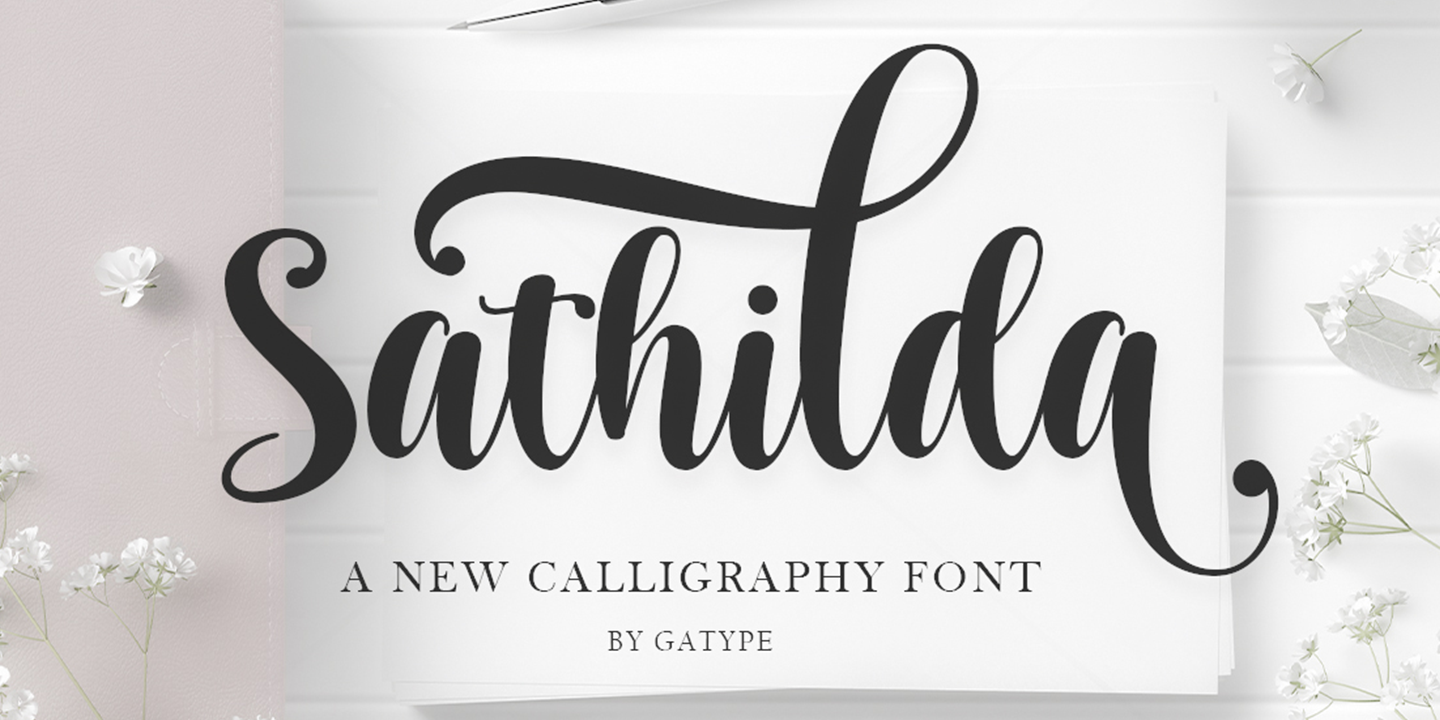
Sathilda
Sathilda is a brush script font family published by Gatype.
Sathilda is a beautiful modern calligraphy typeface, I hope you will be interested in this font, if you want to use it for your work. This font can be used easily and simply because there are many features in it. contains a full set of lowercase and uppercase letters, a wide variety of punctuation marks, numbers, and multilingual support. Sathilda would be perfect for invitations, logo & branding, photography, advertising, watermarks, social media posts, product packaging, product designs, labels, wedding designs, stationery, special events, or anything that needs a handwritten feel. Alternate characters are divided into several Open Type features such as , Alternative Style. The Open Type feature can be accessed using intelligent Open Type programs such as Adobe Illustrator, Adobe InDesign, Adobe Photoshop version of Corel Draw X, and Microsoft Word. And this Font has provided PUA unicode (custom coded font). so that all alternative characters can be easily accessed in full by a craftsman or designer.